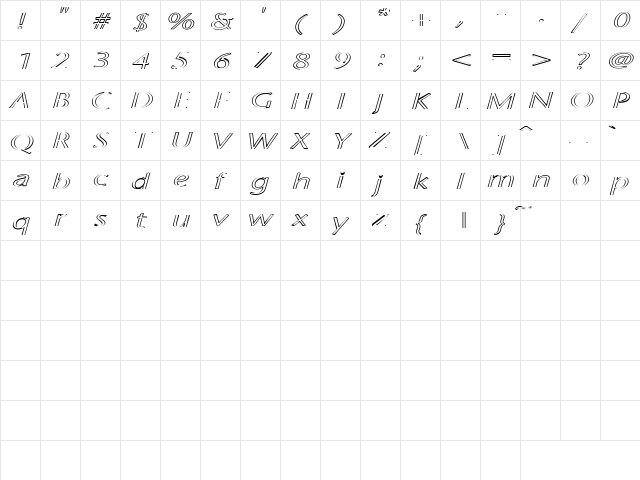
Linguini 4 Regular
Design Context for Linguini 4 Typeface
Linguini 4 takes a measured approach to typography — its balanced proportions and neutral character make it a reliable workhorse for both digital and print work.